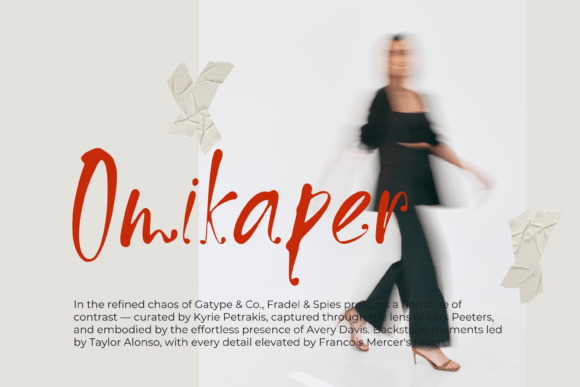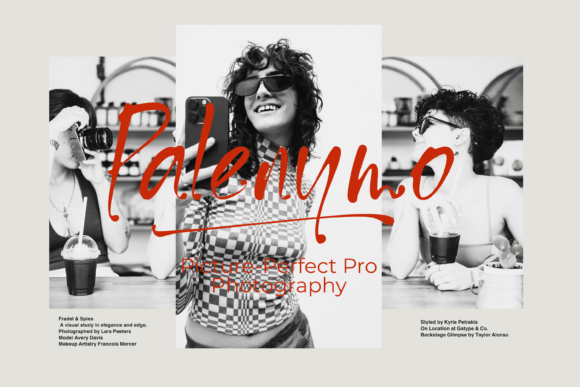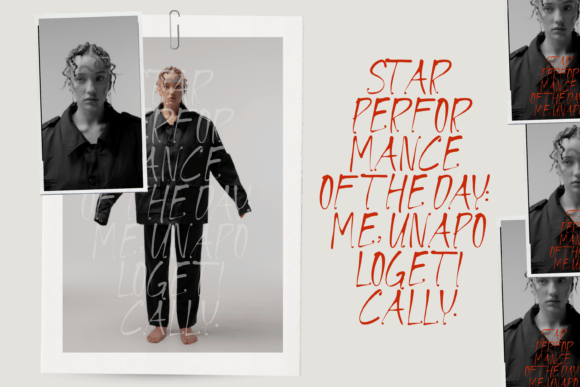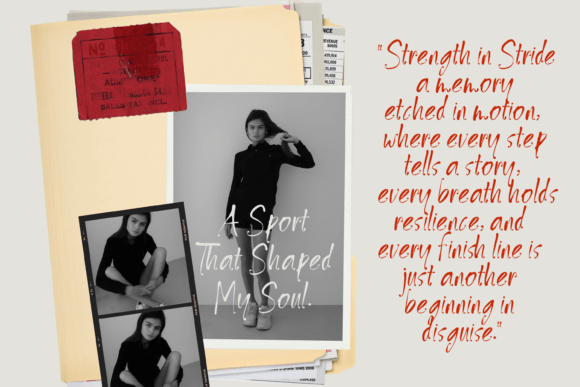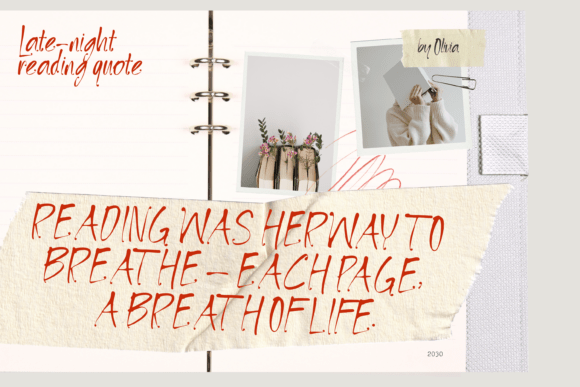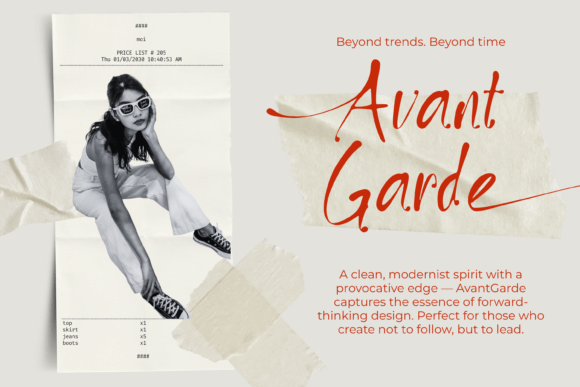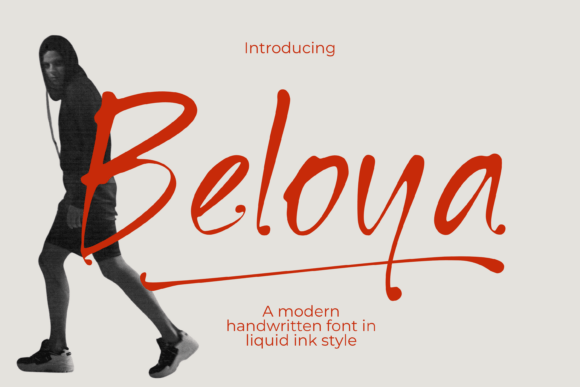
Discover the Elegance of Beloya: A Modern Handwritten Font
I’ll never forget the design project that led me to Beloya. I was working on a branding campaign for a boutique craft business, and my client specifically asked for a “handwritten, yet sophisticated” font. As I scoured the internet for the perfect match, I stumbled upon Beloya – a sleek and expressive handwritten typeface that captured the fluid beauty of ink in motion. It was love at first sight! 💕
A Personal Review of Beloya
• 💫 Beloya’s flowing strokes and organic curves add a touch of authenticity and refined elegance to any design.
• ✅ The font’s modern aesthetic makes it perfect for a wide range of projects, from branding and signature logos to social media graphics and editorial layouts.
• 🎨 Beloya’s PUA encoding allows effortless access to all glyphs, swashes, and alternate characters, making it a joy to work with.
While Beloya is an exceptional font, there are a few minor limitations to consider:
• 🤔 Some users may find the font’s liquid ink style too fluid for very small font sizes or low-resolution applications.
• ⚠️ As with any font, it’s essential to test Beloya with your specific design requirements to ensure it meets your needs.
The Story Behind Beloya
Beloya was designed with the intention of capturing the natural rhythm of freehand writing and the rich textures of ink on paper. The designer’s inspiration came from the fluid motion of liquid ink, which is reflected in the font’s smooth strokes and organic curves. The result is a modern, handwritten typeface that exudes elegance and sophistication.
What is Beloya’s encoding? Beloya is PUA (Private Use Area) encoded, allowing effortless access to all glyphs, swashes, and alternate characters.
Is Beloya suitable for body text? While Beloya is an elegant font, it’s best suited for headlines, titles, and short paragraphs. For body text, consider a more traditional font for optimal readability.